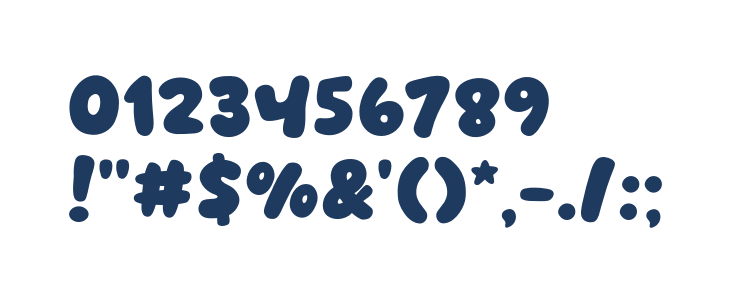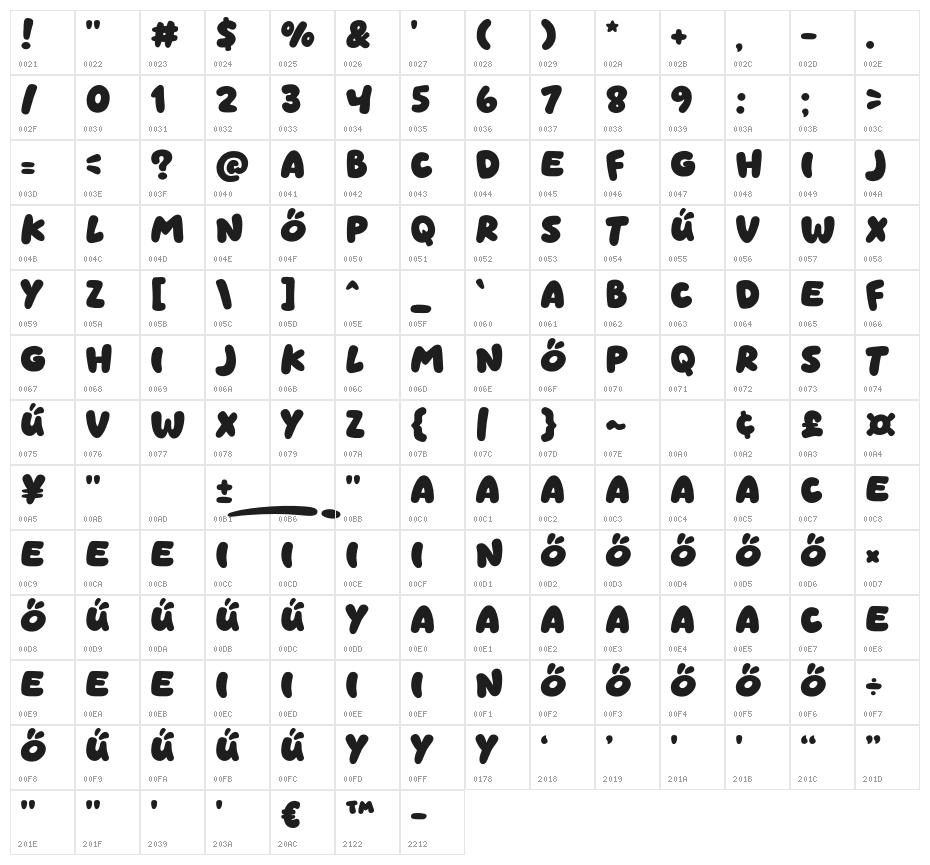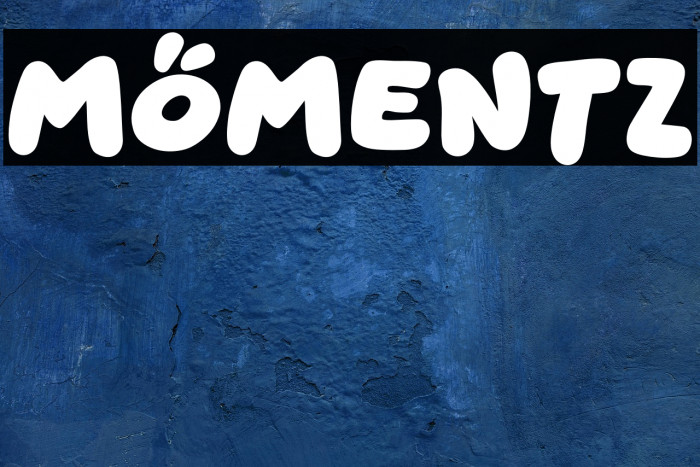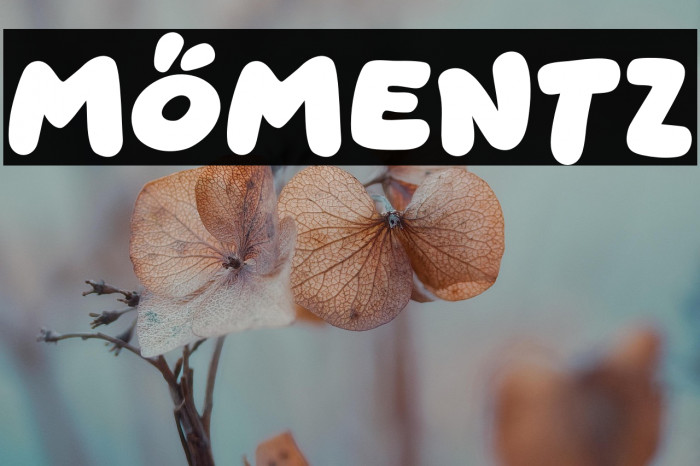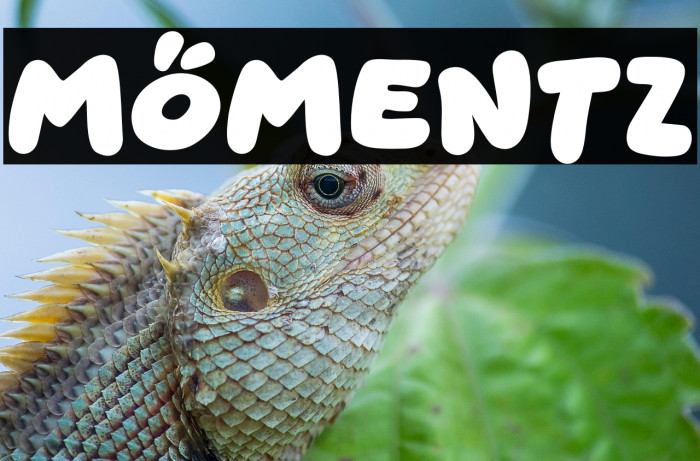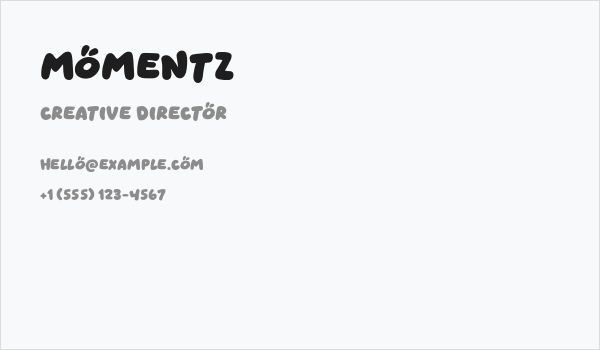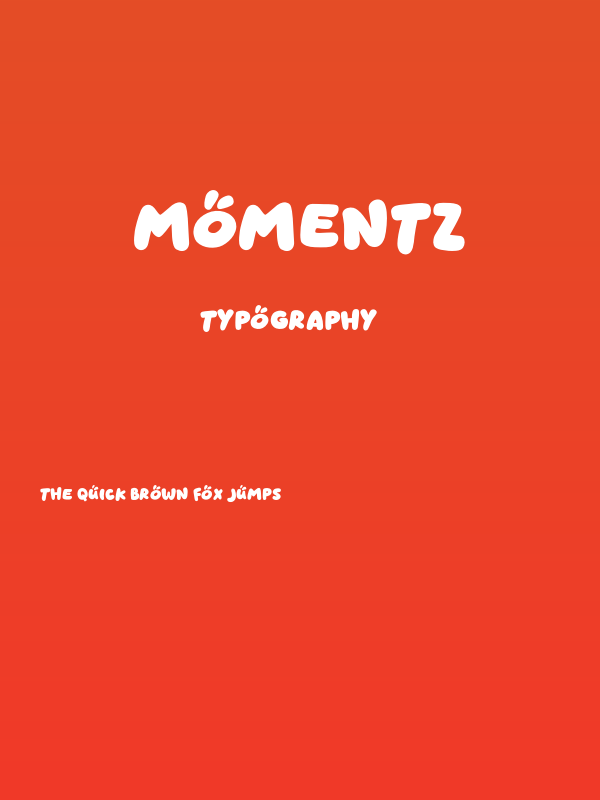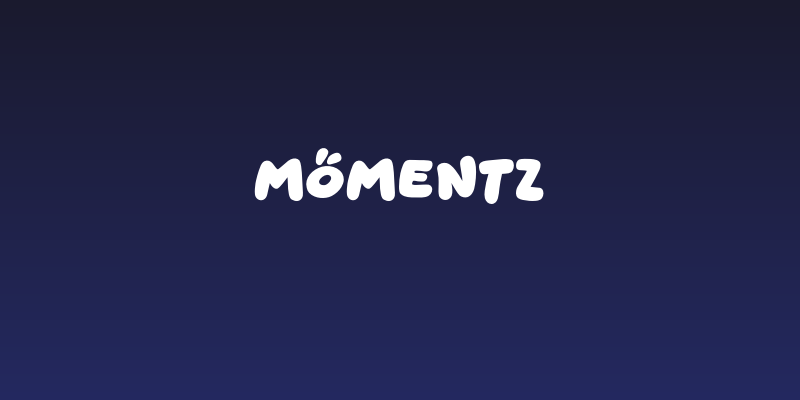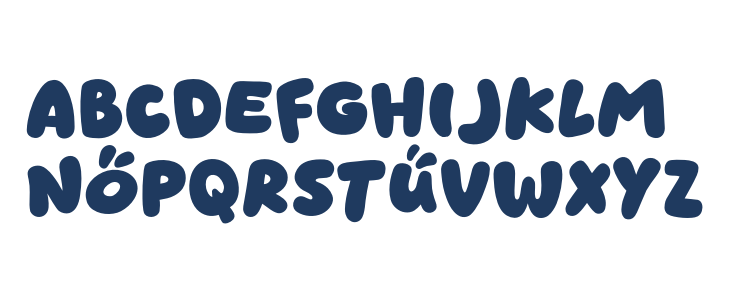
Momentz Font
Momentz Description
This playful and bold font features rounded, bubbly characters that exude a sense of fun and whimsy. The letters are thick and uniform, with a consistent stroke width that gives them a solid and substantial appearance. The rounded edges and lack of sharp angles contribute to a friendly and approachable feel. The font includes a full set of uppercase and lowercase letters, numerals, and a variety of special characters, making it versatile for different uses. Its boldness ensures high visibility, making it suitable for eye-catching designs.
| Proposed Projects | Ideal for children's books, playful branding, party invitations, and casual posters. |